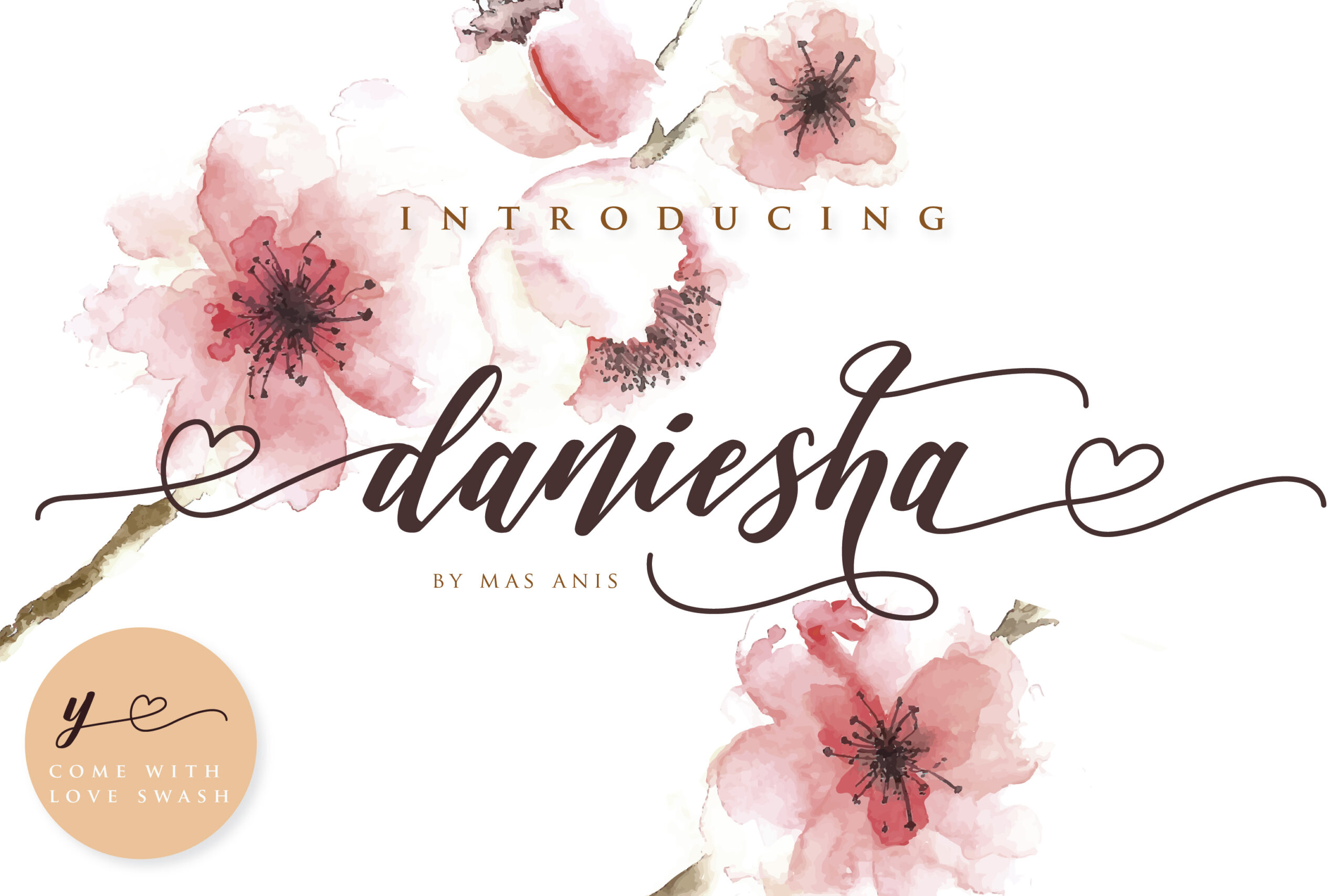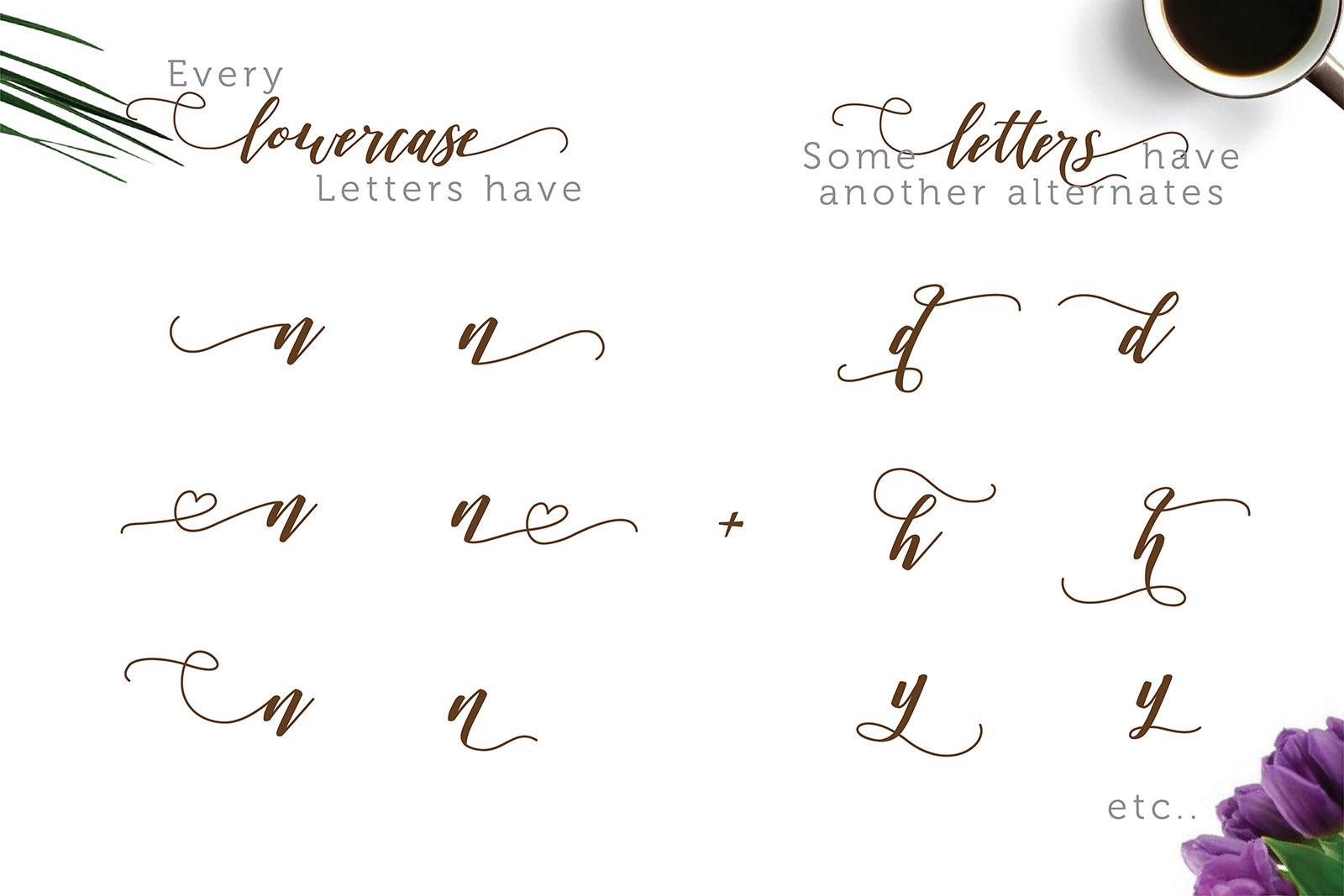
Daniesha Lovely Script Free Font
Daniesha Lovely Script Free Font is a new fresh, unique & modern script with a handmade calligraphy style and decorative characters, a unique blend of classic and modern fonts.
Includes a lot of alternative and beautiful swirls in fonts including styles, Alternates, Swashes, etc. Open Type features are accessible using Open Types savvy programs such as Adobe Illustrator CS, Adobe Photoshop, Adobe Indesign & CorelDraw X6-X7, Microsoft Word, and other programs. And this font has Unicode PUA code (font with special code). So that all alternative characters can be easily accessed by craftsmen or designers. This free typeface was designed by a talented Mas Anis. If you like it don’t forget to check out the full version.